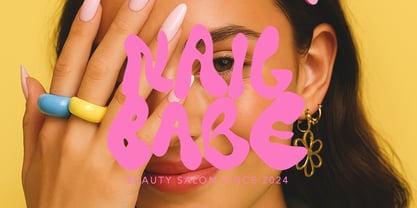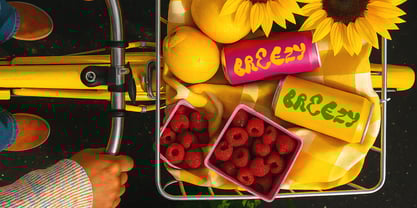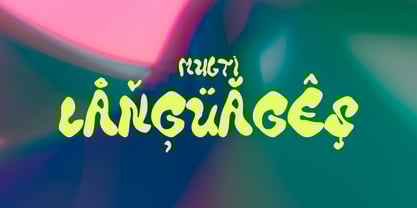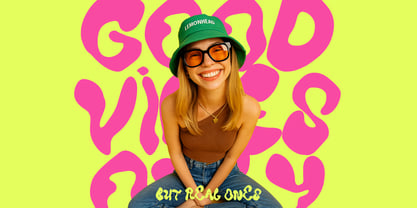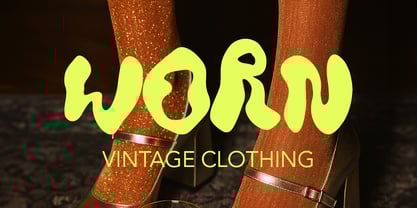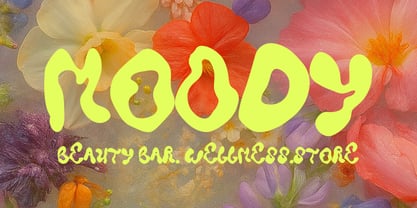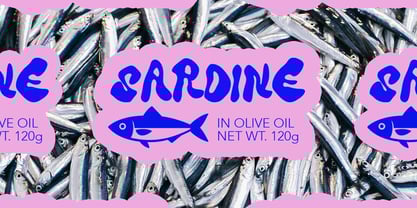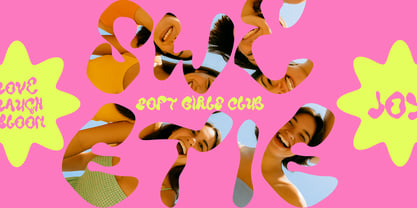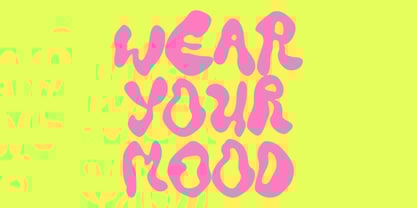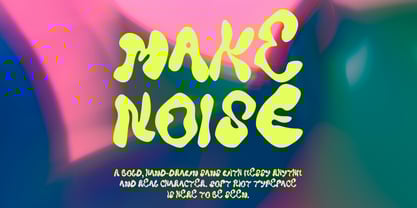
Soft Riot
The Soft Riot Font Family was designed by Daria Cherniackova and published by Bilberry Create. Soft Riot contains 1 styles. More about this family
Soft Riot Typeface - Playful All-Caps Handwritten Font Soft Riot is a bold, squishy, and super-playful all-caps handwritten typeface with a raw street-art vibe. Inspired by DIY posters, bubble letters, and hand-painted signage, this font brings personality and movement to any project. Each letter flows with organic shapes and soft curves, making your design feel fun, alive, and a little bit rebellious. Perfect for branding, merchandise, packaging, social media graphics, stickers, editorial layouts, and anything that needs an expressive handmade touch. What’s Included Soft Riot Full uppercase alphabet Numbers & basic punctuation Smooth, rounded shapes with irregular character forms Works in Canva, Photoshop, Illustrator, Figma, Procreate & more Great For Indie brands & small business identities Streetwear & youth culture projects Posters & flyers Album covers & zines Fun, playful UI/packaging concepts Highlight This typeface isn’t neat. It’s not polished. It’s loud, soft, bold, and imperfect - on purpose. Give your design a bit of riot energy.